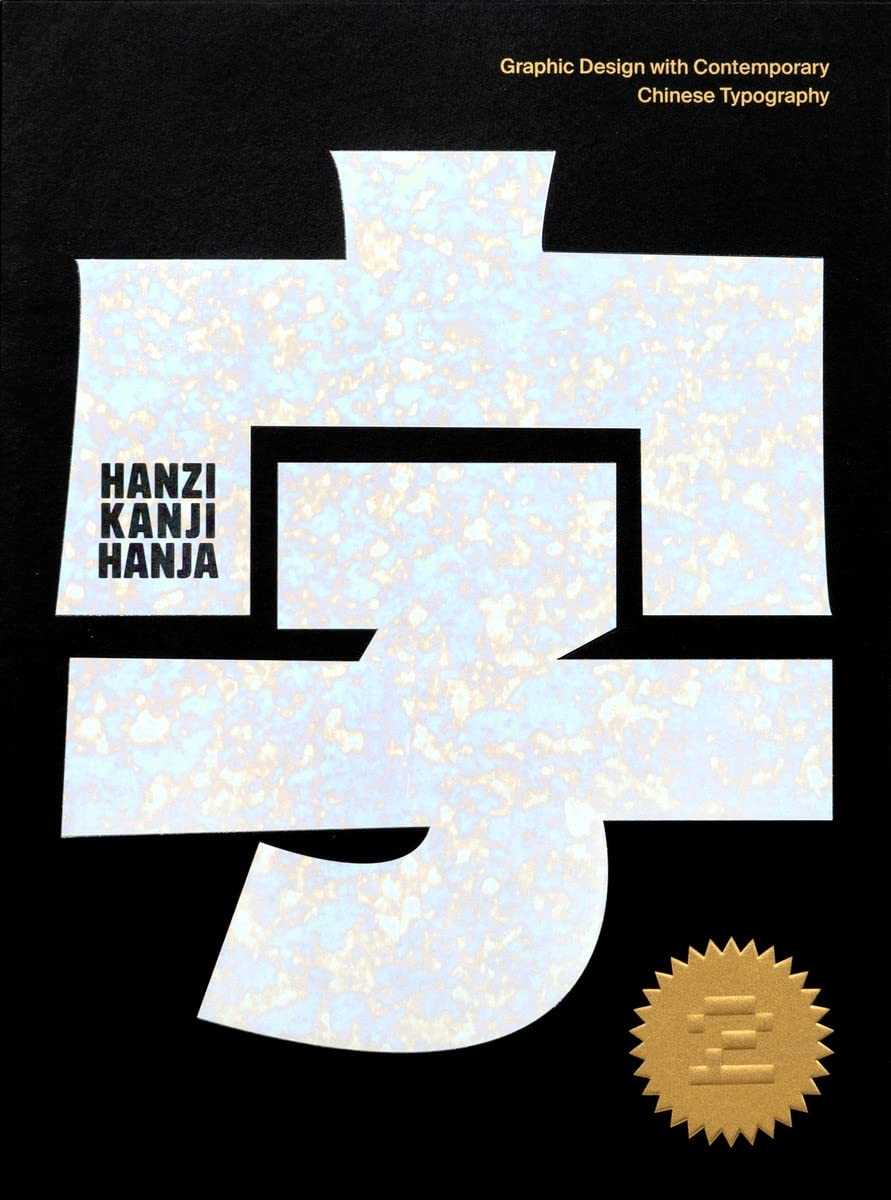
Hanzi•Kanji•Hanja 2: Graphic Design with Contemporary Chinese Typography
Graphic & Logo design with contemporary Chinese characters
The age of the internet and media have brought about a growing interest in Asian culture and its various languages across the region. Han characters in particular, which are applied in Chinese, Japanese and Korean contexts respectively as three branches of the same written system, are becoming more than text-based communication devices. Due to the structure of the characters themselves, they are being utilised as flexible design elements that bring abstract visual concepts to life in breaking the barriers between the East and the West.
As a follow-up to the original release in 2015, Hanzi•Kanji•Hanja 2 focuses more on the former (i.e. Hanzi) through over 100 projects that give the ancient type form a fresh and modern facelift. Like its predecessor, the book comprises logotypes and their applications to offer readers a closer insight into the art of the strokes; as well as a showcase of brand identities, posters, packaging, advertisements and the like – expanded further with case studies and interviews to serve as an inspiring reference point for designers of all cultures.